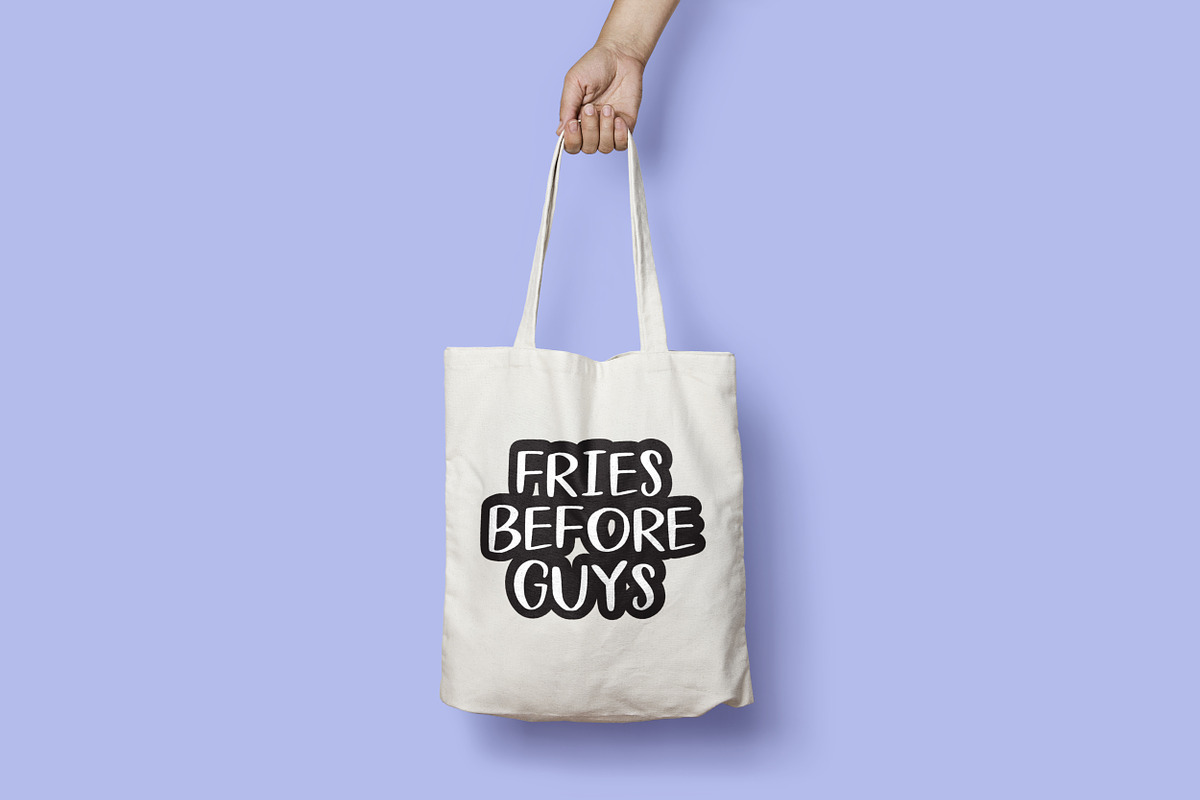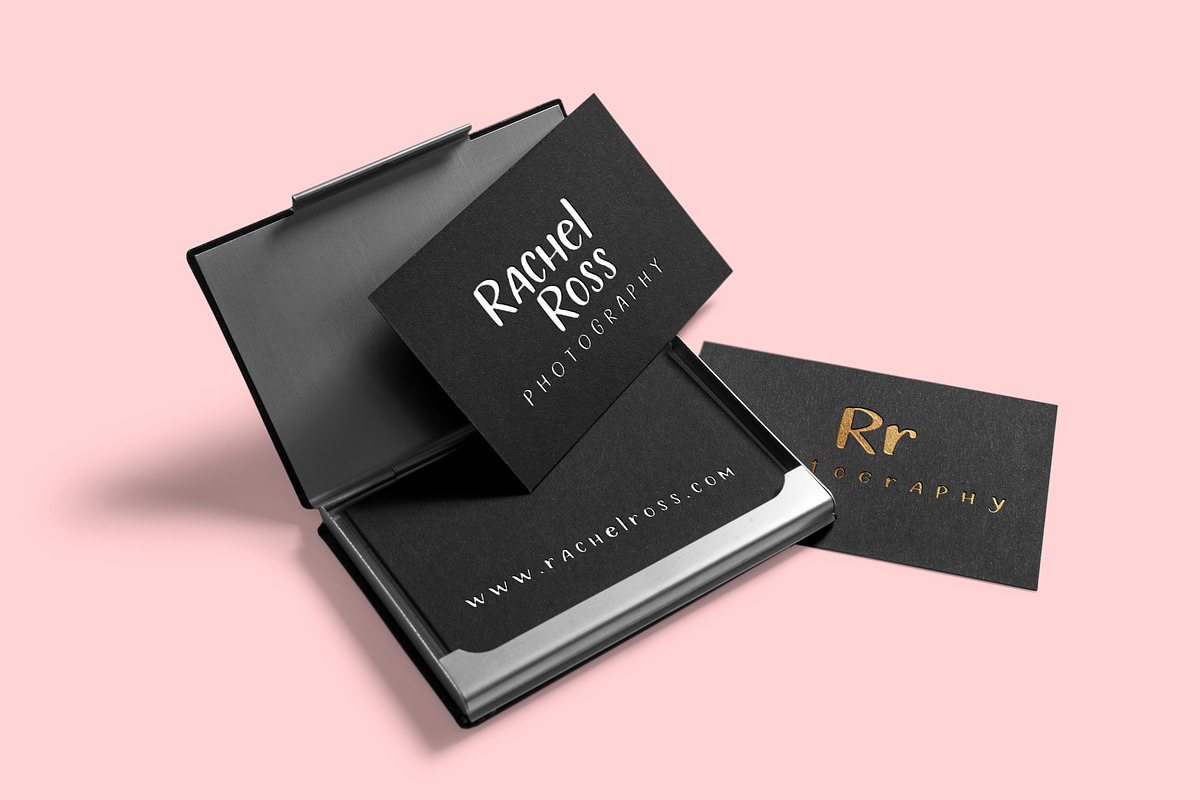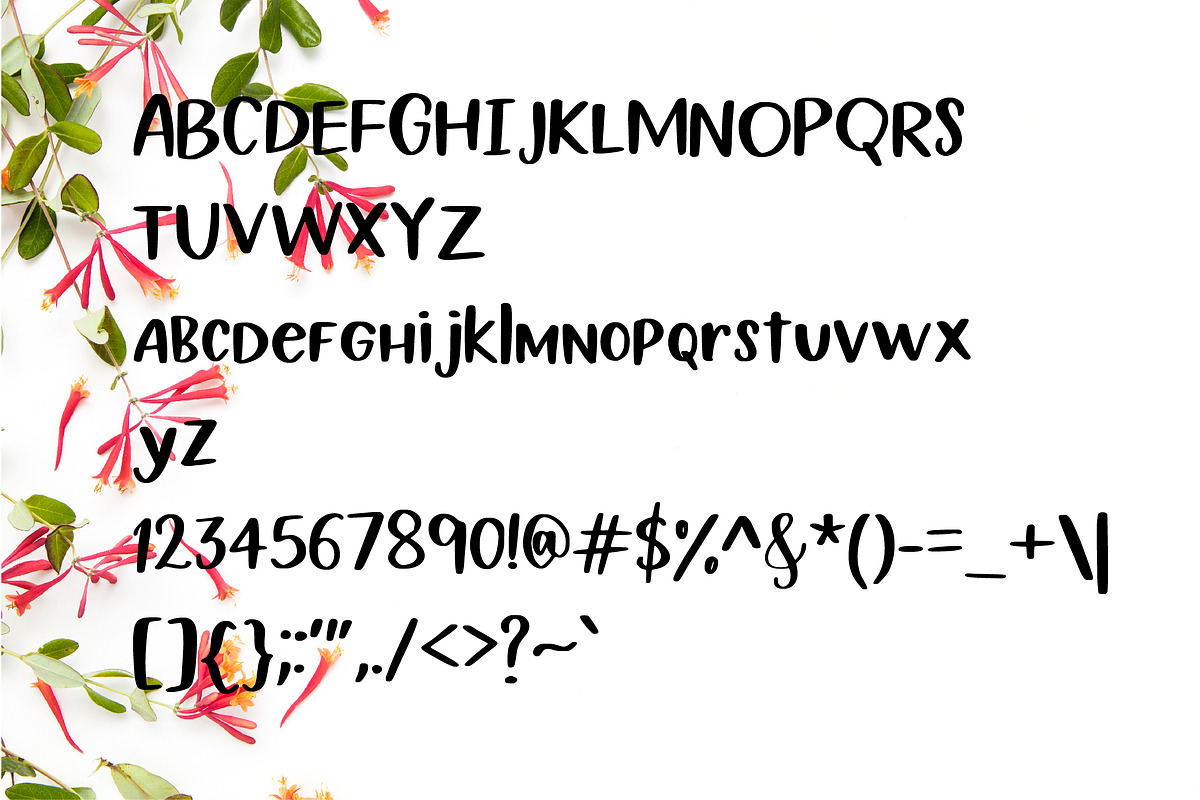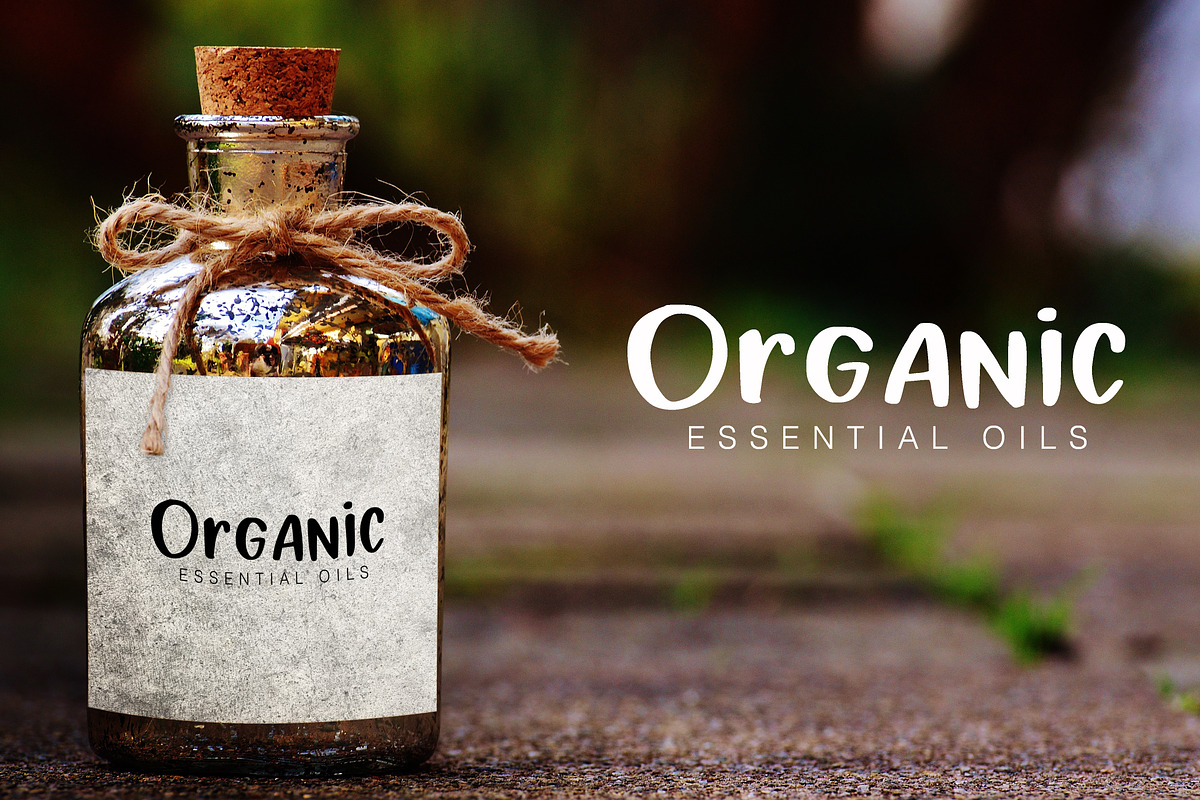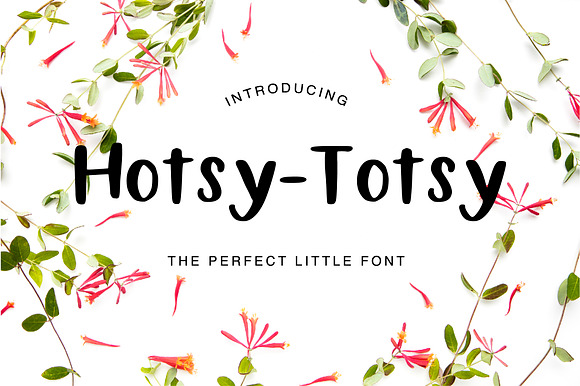
Hotsy Totsy Font
Meet Hotsy-Totsy, a simple little sober font that is too cute to not be ignored. This font adds just the right amount of simplicity and cuteness to your designs and can be used in a number of projects from logos to business cards to greeting cards.
Numbers and Punctuation